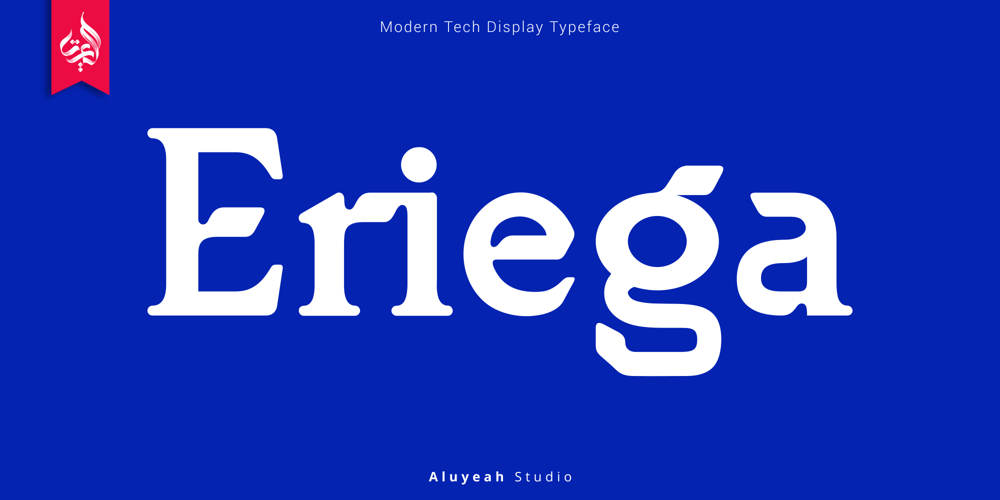
Al Eriega Font Family was designed by Linggar Sundoro and published by Aluyeah Studio. Al Eriega contains 1 styles and family package options. Inspired by the many emerging tech startups, we wanted to create a font that can play to give the impression of technology but still fit into various design areas. Eriega gives the impression of modern and technology as a movement for change for the better.Eriega is a modern tech display typeface that unites the enthusiasm and technology. A simple, modern, futuristic font that can be applied to many areas of design. Coming with 90+ stunning and super easy to use alternates and ligatures.Very suitable for apps, magazine, headline, website, ads, product package and all type of design project you have. Features:OpenType supportMultilingual support (15 languages)PUA EncodedSuper Easy to Use alternates – It’s OpenType support but you can easily call alternates character using special combination like A.2 S.2 a.r r.i etc. To get results like the preview just type Er.iega